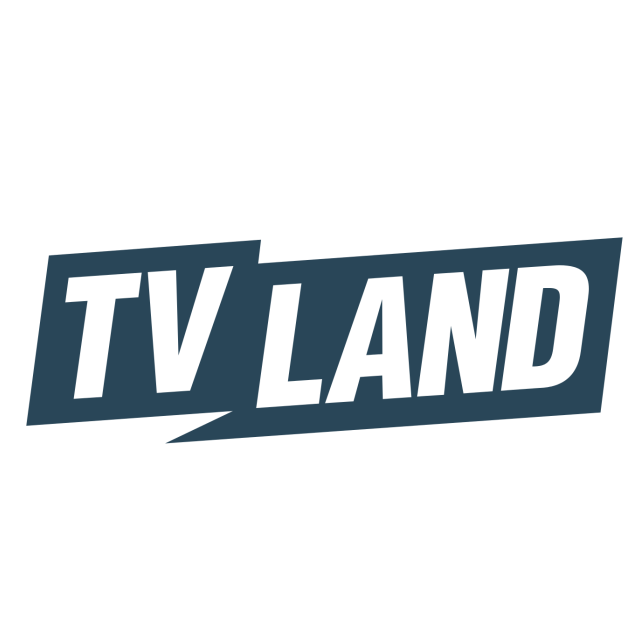
TV Land Logo Font
Fonts in UseTV Land is a cable television channel that primarily airs classic television series from the 1950s to the 2000s. It is owned by ViacomCBS and launched in 1996.
The logo of TV Land features the widely-used sans-serif typeface, Helvetica Cond Black Oblique, developed in 1957 by Swiss designer Max Miedinger with input from Eduard Hoffmann.